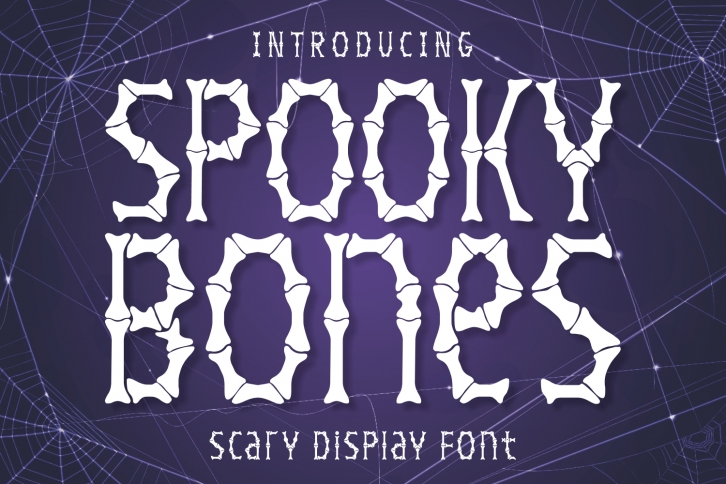
Spooky Bones is a Halloween-themed decorative font. Get your typography designs in the Halloween spirit with this bony typeface! Use it for sublimation projects, posters, invitations, decorations, t-shirts, and many more.